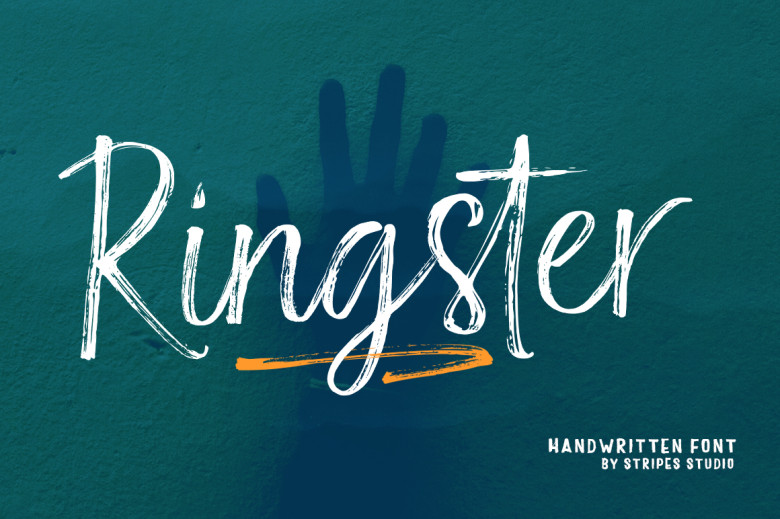
Ringster Font
Ringster is an informal hand-brushed script font featuring detailed brush strokes. With such versatility in use, its wide array of applications includes signatures, title letters, letterheads and signage, labels and posters, newsletters, logos, correspondence, wedding invitations and badges etc.
Ringster Brush Script Font